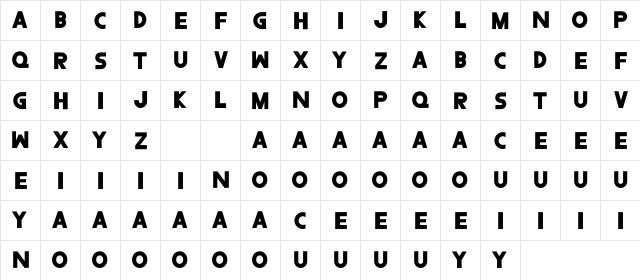
Bolique Regular
Design Context for Bolique Typeface
Bolique offers clean, dependable letterforms without strong stylistic allegiance, making it a practical choice for designers who need flexibility.